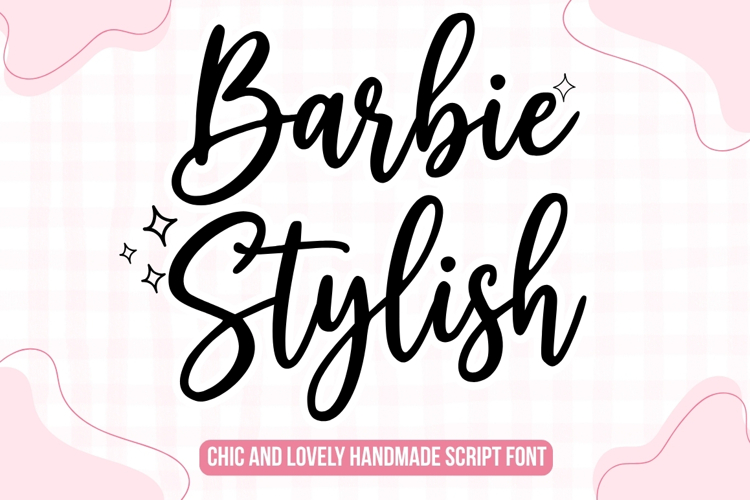
Barbie Stylish
Barbie Stylish is a modern handmade script font that radiates elegance, confidence, and playful sophistication. Carefully crafted with smooth flowing strokes and natural handwritten details, this font captures the beauty of effortless penmanship while maintaining excellent readability. Every letter is designed to create a graceful rhythm, making your typography feel warm, stylish, and full of personality.
With its charming curves and fashionable appearance, Barbie Stylish is perfect for branding, logos, beauty products, fashion labels, boutique packaging, wedding invitations, social media graphics, greeting cards, feminine merchandise, lifestyle blogs, product packaging, magazine headlines, and premium marketing materials. Its versatile style allows it to blend seamlessly into both modern and classic design concepts.
Whether you're designing for a luxury brand or creating a sweet, creative project, Barbie Stylish adds a touch of elegance and handcrafted authenticity that makes every word stand out beautifully.